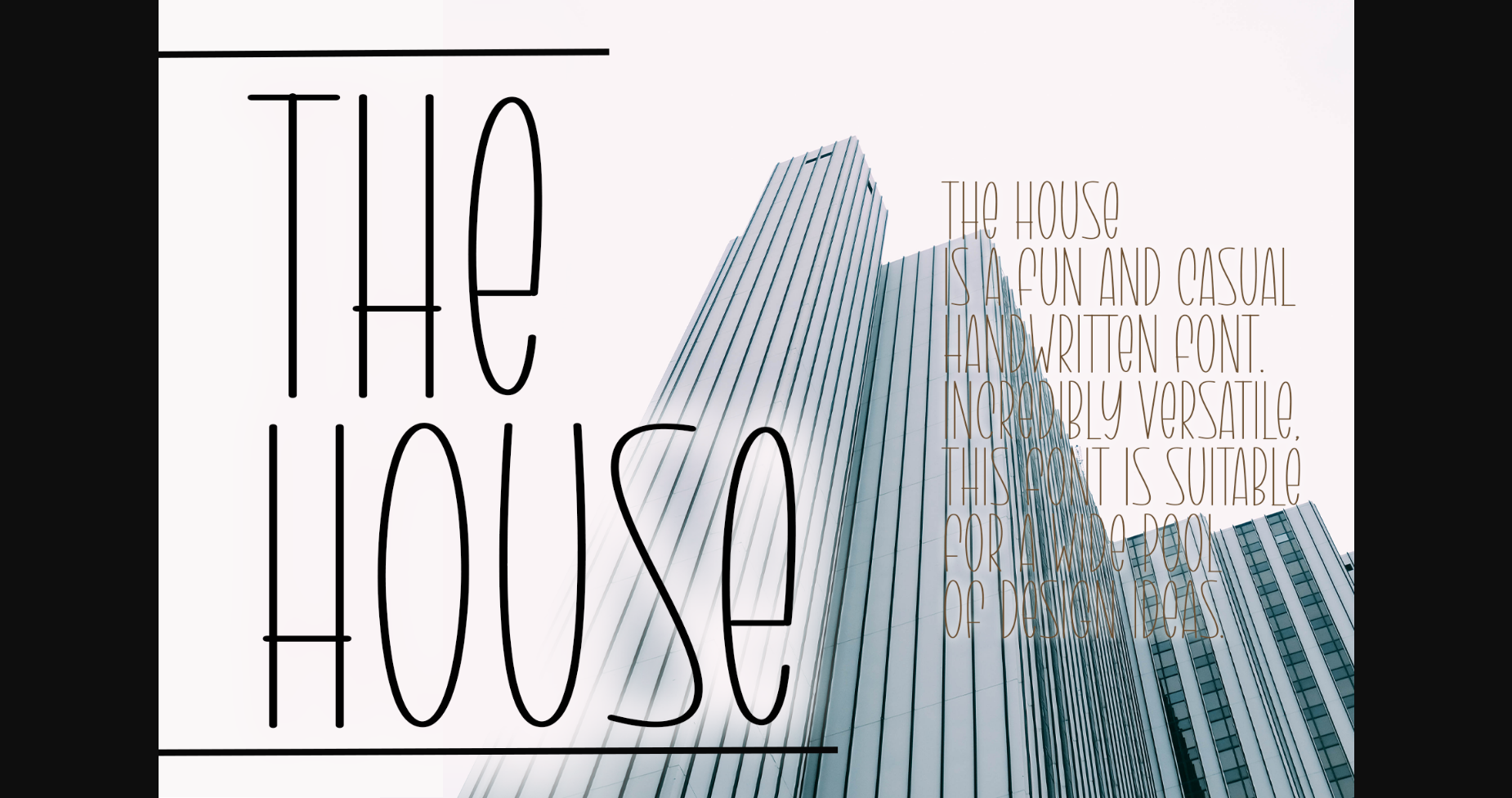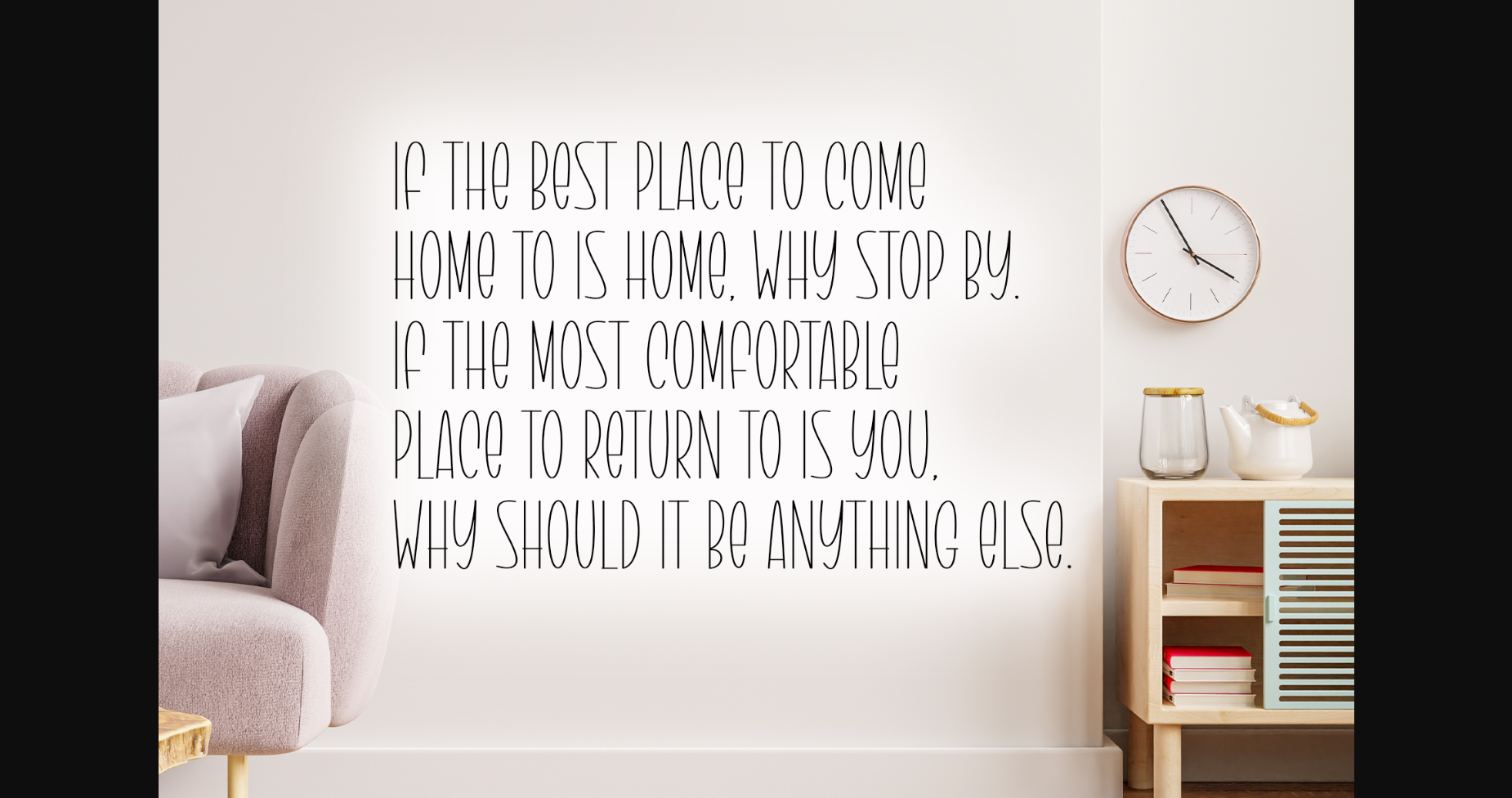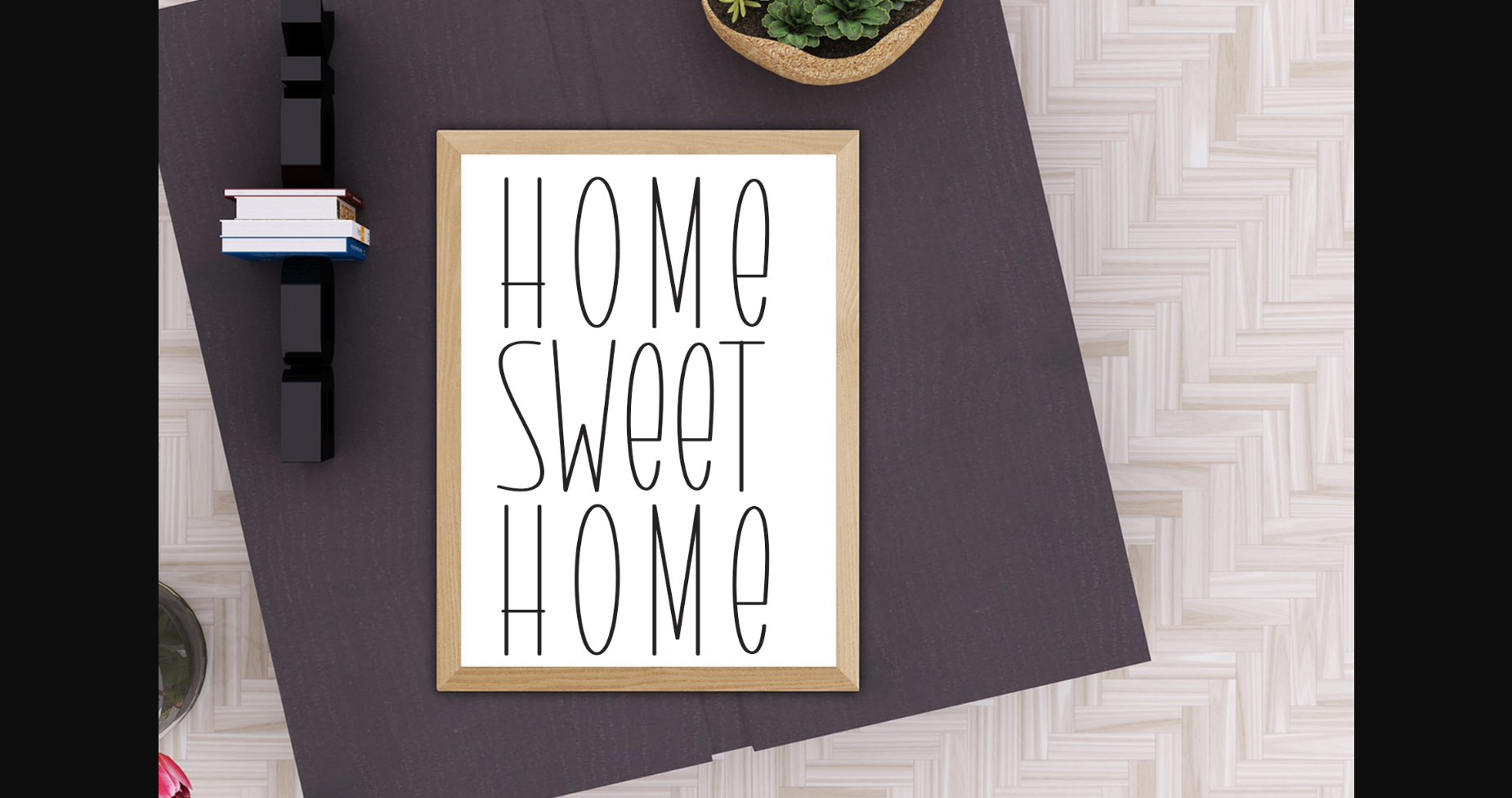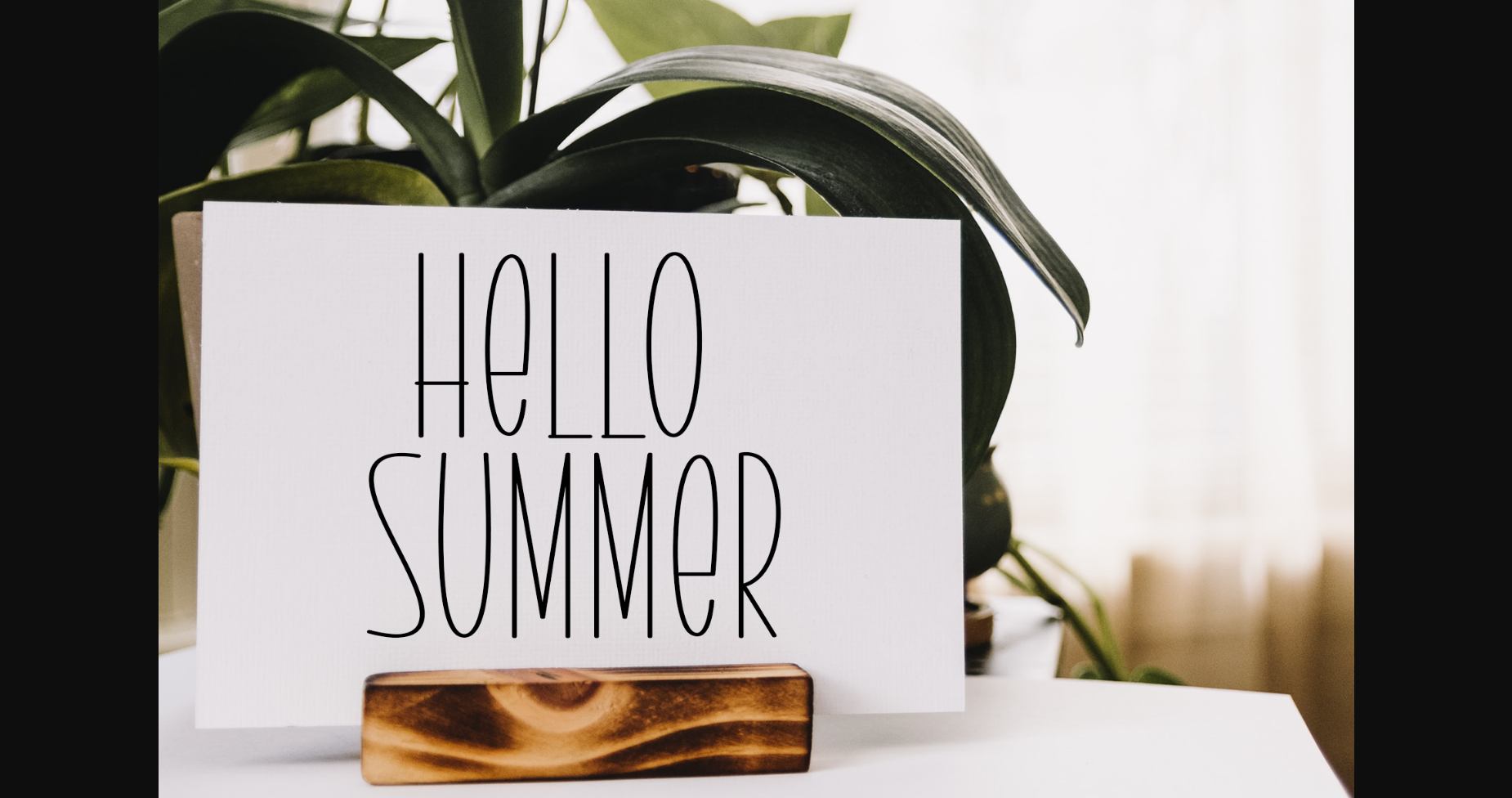
About The House Font
ntroducing The House Font, a sleek and modern sans serif typeface that embodies simplicity and versatility. With its clean lines and balanced proportions, this font offers a timeless and sophisticated look. Perfect for branding, editorial design, and signage, The House Font brings a touch of elegance and professionalism to your projects, making a strong statement while maintaining a sense of clarity and readability.